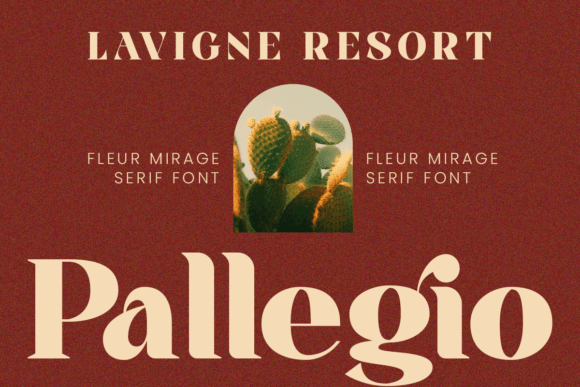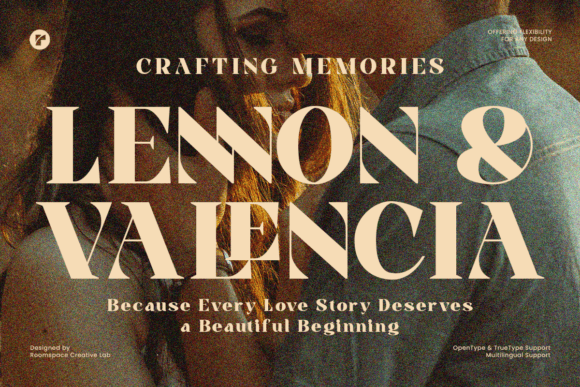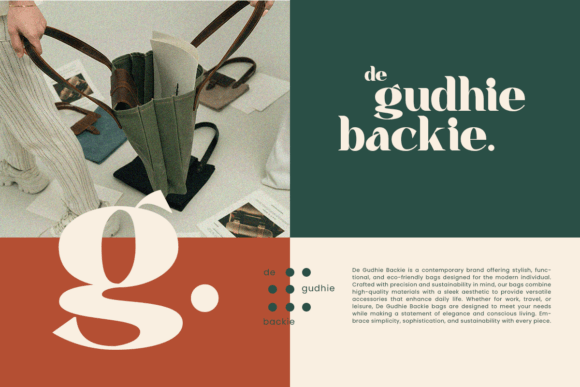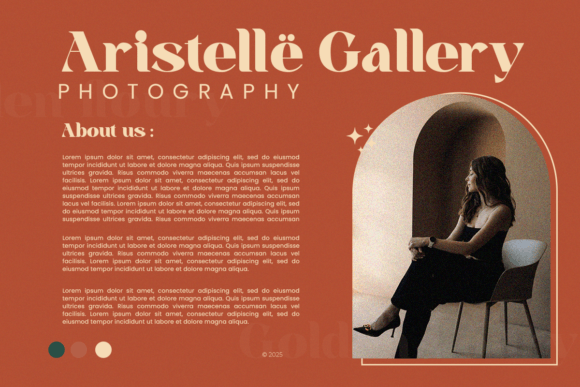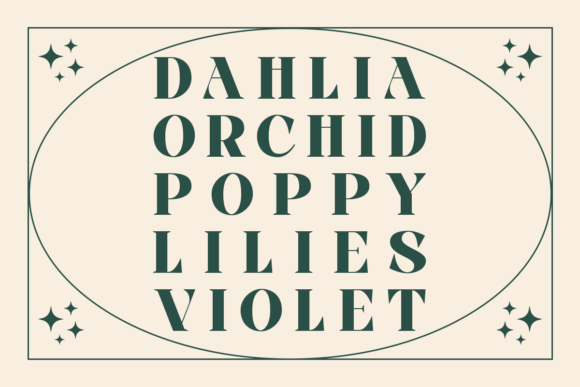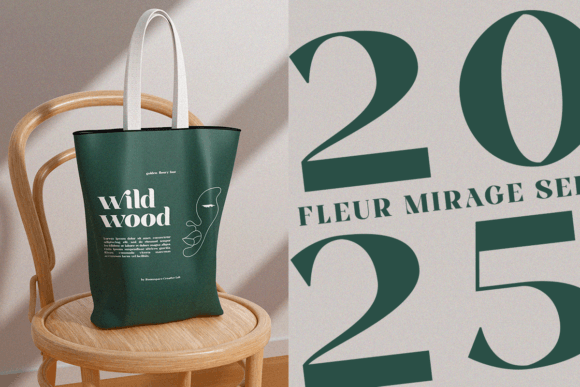
Fleur Mirage Font: Elevate Your Designs with Retro Charm and Modern Elegance
Are you looking for a font that can add a touch of sophistication and uniqueness to your creative projects? Look no further than Fleur Mirage, a stunning serif font that perfectly blends retro charm with modern elegance. Designed to elevate your designs, this versatile typeface offers a classy and stylish appeal that can be used in a variety of applications.
Retro and Vintage Appeal
Fleur Mirage captures the timeless aesthetic of the 60s and 70s, making it perfect for designers and crafters who want to add a touch of nostalgia to their work. The font’s retro and vintage appeal is characterized by its soft curves and bold serif elements, which strike the perfect balance between modern and decorative styles. Whether you’re creating logos, wedding invitations, magazine layouts, or social media graphics, Fleur Mirage adds a touch of elegance and sophistication to every design.
Elegant and Stylish Design
Fleur Mirage is crafted with precision and attention to detail, making it a standout choice for both classic and trendy projects. The font’s elegant and stylish design makes it perfect for designers who want to create visually appealing and cohesive designs. The soft curves and bold serif elements of Fleur Mirage give it a unique and distinctive look that sets it apart from other fonts.
Versatile and Multi-Purpose
One of the best things about Fleur Mirage is its versatility. This font can be used in a variety of applications, from logos and branding to wedding invitations and social media graphics. Whether you’re a designer, crafter, or DIY enthusiast, Fleur Mirage is a great choice for anyone looking to add a touch of elegance and sophistication to their work.
Fleur Mirage is perfect for a wide range of creative projects, including:
- Logos and branding: Add a touch of elegance and sophistication to your logo and branding with Fleur Mirage.
- Wedding invitations: Create beautiful and stylish wedding invitations with Fleur Mirage.
- Magazine layouts: Use Fleur Mirage to add a touch of class and sophistication to your magazine layouts.
- Social media graphics: Create visually appealing and cohesive social media graphics with Fleur Mirage.
Why Choose Fleur Mirage?
There are many reasons why Fleur Mirage is a great choice for designers and crafters. Here are just a few:
- Unique and distinctive look: Fleur Mirage has a unique and distinctive look that sets it apart from other fonts.
- Retro and vintage appeal: Fleur Mirage captures the timeless aesthetic of the 60s and 70s, making it perfect for designers and crafters who want to add a touch of nostalgia to their work.
- Versatile and multi-purpose: Fleur Mirage can be used in a variety of applications, from logos and branding to wedding invitations and social media graphics.
- Elegant and stylish design: Fleur Mirage is crafted with precision and attention to detail, making it a standout choice for both classic and trendy projects.
| Font Name | Fleur Mirage Font |
| Author | roomspace |
In conclusion, Fleur Mirage is a stunning serif font that perfectly blends retro charm with modern elegance. With its unique and distinctive look, retro and vintage appeal, and versatile and multi-purpose design, Fleur Mirage is a great choice for designers and crafters who want to add a touch of sophistication and elegance to their work. Whether you’re creating logos, wedding invitations, magazine layouts, or social media graphics, Fleur Mirage is the perfect font for you.